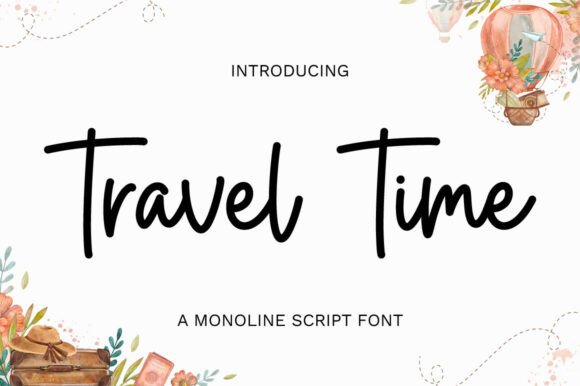
Travel Time: A Font That Captures the Spirit of Adventure
In a digital landscape saturated with rigid, geometric typefaces, finding a font that balances modern elegance with effortless charm can feel like searching for a hidden gem. Enter Travel Time, a monoline script typeface designed to bridge the gap between polished design and authentic human connection. Unlike standard fonts that prioritize strict uniformity above all else, Travel Time embraces the natural rhythm of handwriting while maintaining the consistency required for professional branding.
This article explores what makes Travel Time a unique tool for creators, business owners, and content strategists. We will examine its structural characteristics, discuss practical applications across various industries, and provide guidance on how to leverage its PUA encoding features to unlock its full potential without needing complex software setups.
The Anatomy of Effortless Elegance
At its core, Travel Time is defined by its clean, consistent strokes. While many script fonts attempt to mimic handwriting by introducing chaotic variations in line weight and spacing, Travel Time takes a more refined approach. It offers a smooth, hand-drawn feel that remains legible even at smaller sizes or when viewed from a distance. This balance is crucial for designers who want the warmth of a personal touch without sacrificing the clarity needed for effective communication.
The font's gentle slant is one of its most defining features. This subtle angle gives the text a relaxed, casual tone, suggesting movement and forward momentumβfitting for a name like "Travel Time." It mimics the flow of real handwriting, where the pen naturally glides across the page. However, unlike actual handwriting, which can vary wildly in readability, Travel Time maintains a high degree of consistency. The connections between letters are handled with care; they are not forced but rather appear as if written in a single, fluid motion. These subtle variations in letter connections add authenticity to the design, ensuring that the text feels organic rather than generated.
Furthermore, the balanced spacing within the typeface prevents the common issue of scripts feeling cramped or disjointed. With its friendly curves and open counters, Travel Time captures a carefree yet refined spirit. It is this specific combination of traits that makes it an ideal companion for projects ranging from heartfelt travel quotes to stylish lifestyle branding.
Why Choose a Monoline Script?
To understand the value of Travel Time, it helps to understand the category it belongs to: monoline scripts. In typography, "monoline" refers to a stroke width that remains relatively constant throughout each character, lacking the dramatic thick-and-thin contrast found in traditional calligraphy fonts. This technical characteristic offers several distinct advantages for modern web and print design.
- Enhanced Readability: Because the lines do not fluctuate wildly, monoline scripts are generally easier to read than their calligraphic counterparts. This makes them suitable for longer phrases, headlines, and even body text in specific contexts.
- Modern Aesthetic: The uniform stroke width gives the font a contemporary look that fits well with minimalist design trends. It avoids the dated appearance often associated with overly ornate script fonts.
- Versatility: The simplicity of the design allows it to pair well with a wide variety of sans-serif and serif fonts, making it a versatile addition to any designer's toolkit.
Travel Time leverages these benefits perfectly. It does not demand attention through complexity; instead, it invites the viewer in with a sense of ease and approachability. Whether you are designing a logo for a boutique hotel or creating social media graphics for a vacation blog, the font's inherent stability ensures your message remains clear and engaging.
Practical Applications Across Industries
The versatility of Travel Time extends far beyond simple decoration. Its ability to convey both professionalism and personality makes it a powerful asset for a diverse range of users. Let's explore some real-world scenarios where this font shines.
For Lifestyle Bloggers and Content Creators
Bloggers often struggle to find typography that reflects their personal brand while remaining readable for SEO purposes. Travel Time is perfect for greeting cards, headers, and pull quotes on lifestyle blogs. Its natural rhythm adds a layer of intimacy to the content, making readers feel as though they are reading a note from a friend. When used for destination-themed designs, the font's adventurous spirit enhances the storytelling aspect of travel writing.
For Small Business Owners and Branding
Businesses looking to establish a warm, welcoming identity can benefit significantly from using Travel Time in their visual assets. Imagine a coffee shop menu, a bakery's signage, or a wedding invitation suite. In these contexts, the font's friendly curves help soften the corporate edge and create an emotional connection with the customer. It transforms a standard transaction into a memorable experience.
Ultimately, Travel Time is more than just a font; it is a tool for expression. It invites users to slow down, appreciate the details, and embrace the journey of creation. For anyone seeking a typeface that combines approachable charm with polished performance, Travel Time proves to be a worthy partner in every endeavor.